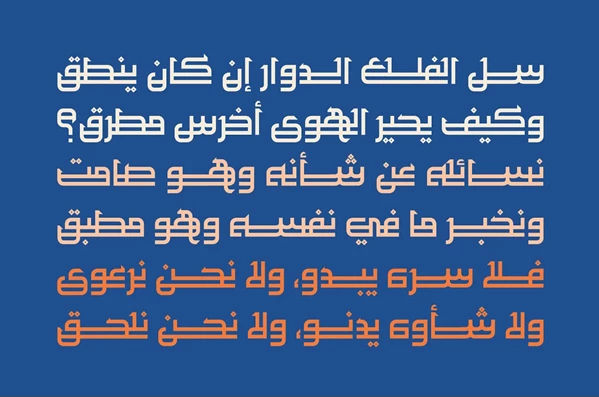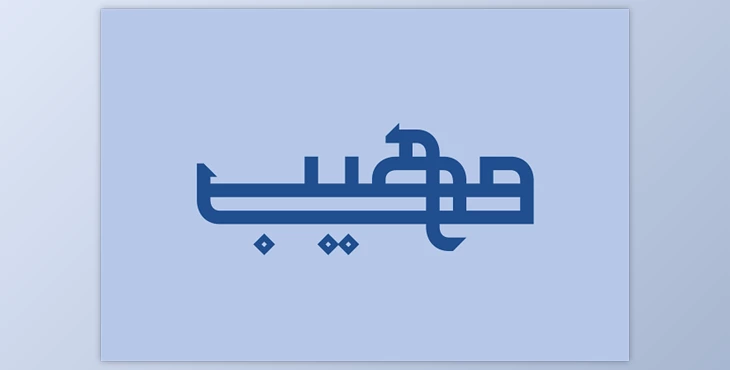
Maheeb, Arabic Font 1361945: Maheeb can be described as the Arabic word meaning Majestic. Maheeb is an Arabic display font that has two baselines. It is constructed on proportionate letters with sharp terminals. It is suitable for various applications, such as printing, web design, and advertising.
Name an Arabic font for creating design applications?
You can use "Maheeb, Arabic Font."
What is Maheeb, Arabic Font?
"Maheeb" is an Arabic display font named after the Arabic word for "Majestic." The font is designed with dual baselines and features proportionate letterforms with sharp terminals. This type of font is versatile and can be used in various applications, including print, web design, and advertising.